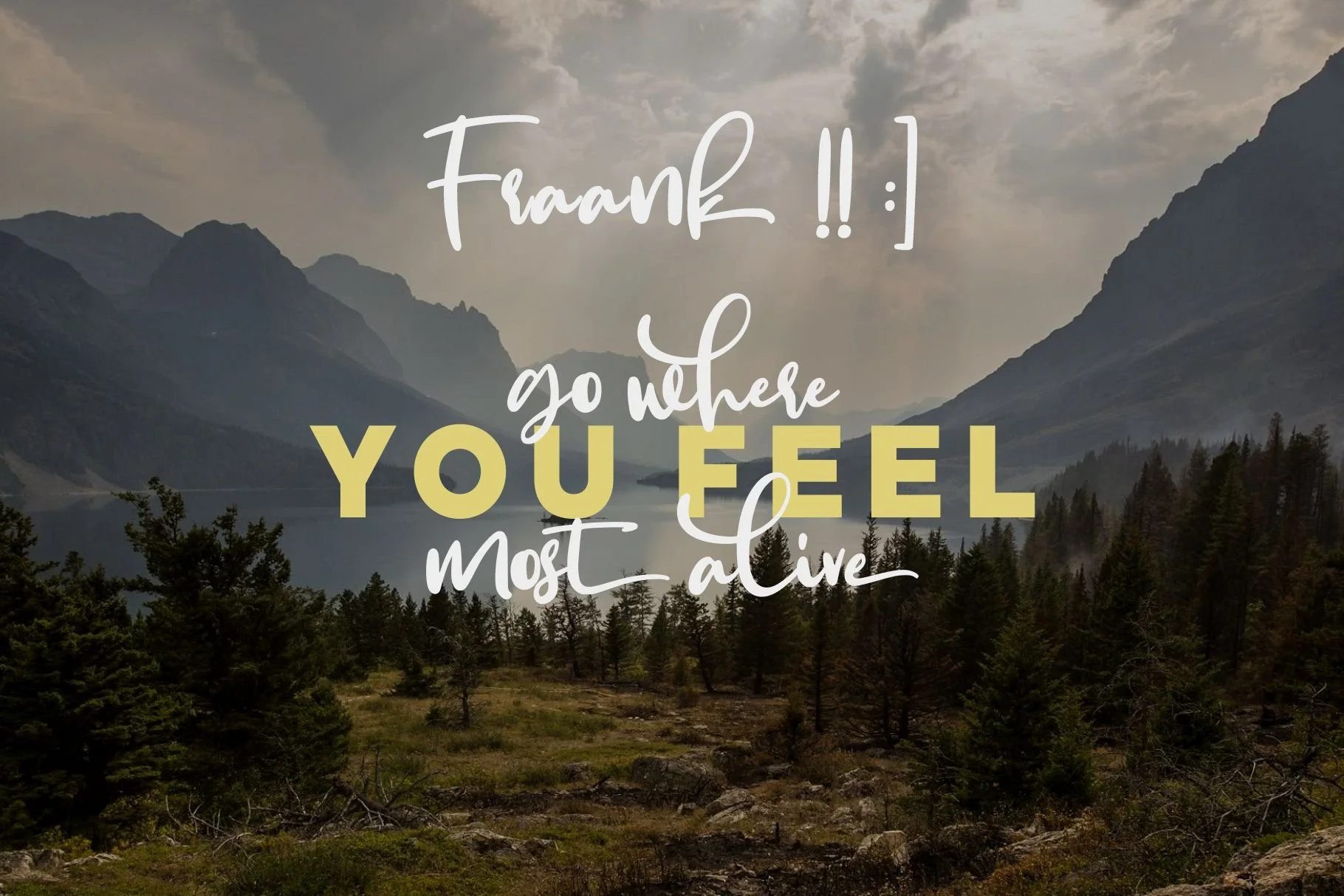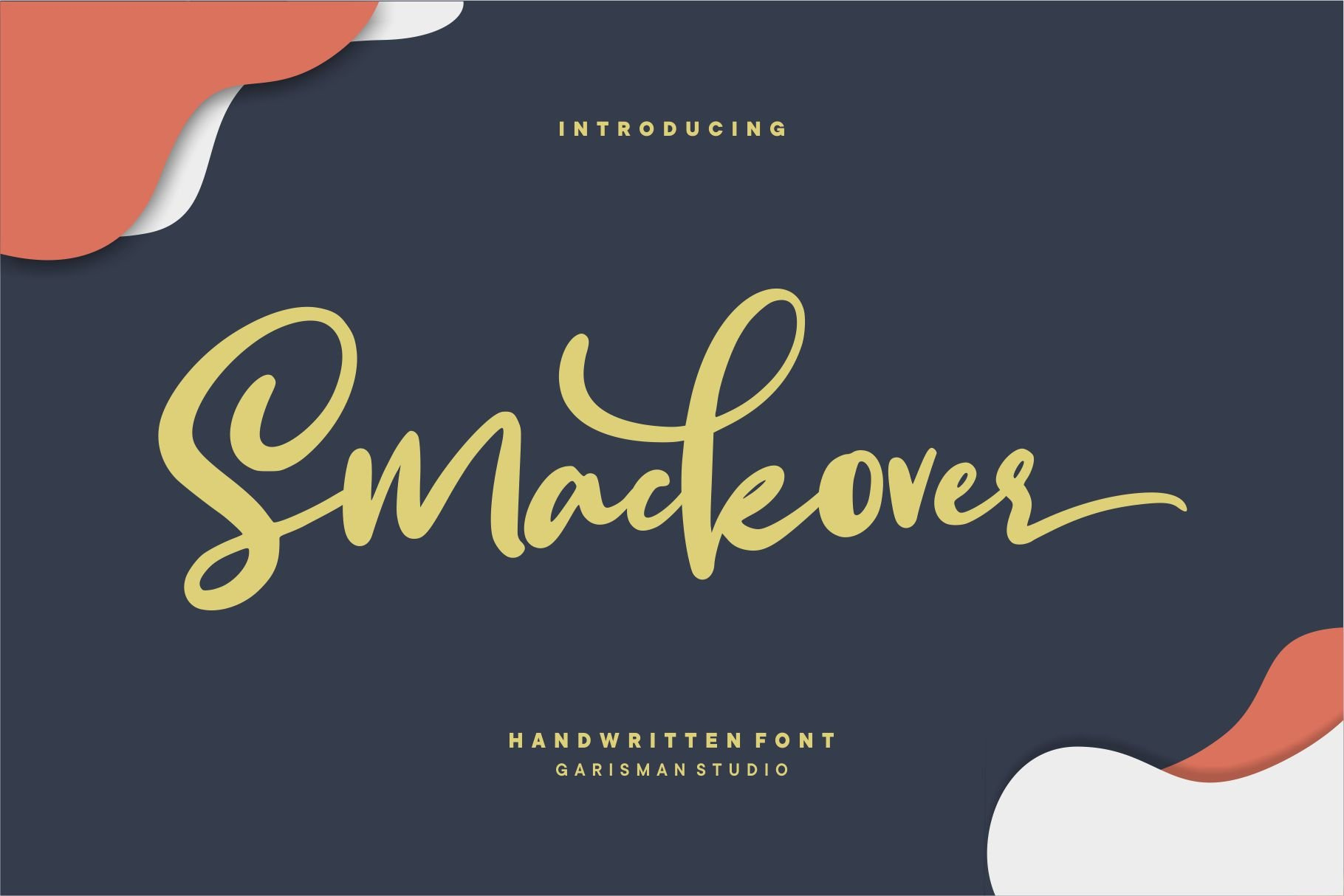
Smackover Handwritten Font
Smackover Handwritten Font is perfect for southern comfort food branding, country store signage, rustic wedding invitations, farmhouse decor, craft brewery labels, local diner menus, BBQ restaurant materials, artisan market displays, hometown festival posters, and authentic americana designs.
Smackover Handwritten Font is exciting because it captures the genuine warmth and down-home authenticity of small-town America, creating a typeface that embodies honest communication and heartfelt tradition. This font brings homespun charm and rural authenticity to any project, making it ideal for brands that want to convey community values, honest craftsmanship, and wholesome American heritage. Its natural handwritten character and friendly appeal create an atmosphere of neighborly warmth that resonates with audiences seeking authentic experiences and genuine connections.
Smackover Handwritten Font family includes regular, bold, and distressed variations, along with country-inspired ornaments and rustic decorative elements, providing designers with comprehensive tools for creating authentic americana typography and heartfelt brand experiences rooted in small-town values.
This charming handwritten typeface combines rural americana aesthetics with contemporary design functionality, making Smackover Handwritten Font a perfect choice for projects celebrating community spirit and authentic American culture. The font's naturally flowing letterforms feature genuine handwriting variations and rural character that mirror the honest communication style of close-knit communities.
Whether you're designing local business branding, farm-to-table restaurant materials, or community event marketing, Smackover Handwritten Font delivers unmatched authenticity and down-home appeal. The font performs beautifully across both traditional print applications and modern digital platforms where genuine character and community connection are valued.
Brand professionals appreciate Smackover Handwritten Font for its ability to instantly communicate honesty and community values while creating emotional connections with audiences seeking authentic experiences. The font's homespun character makes it particularly effective for local businesses, artisan brands, and community organizations.
Each character reflects the genuine warmth of handwritten notes and friendly correspondence, featuring natural imperfections and heartfelt character that creates typography as welcoming as a front porch conversation.